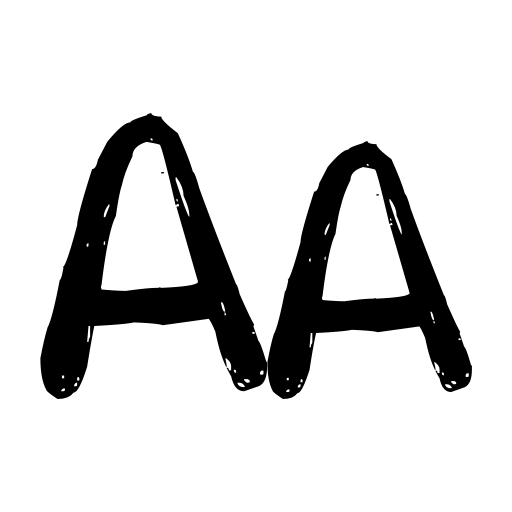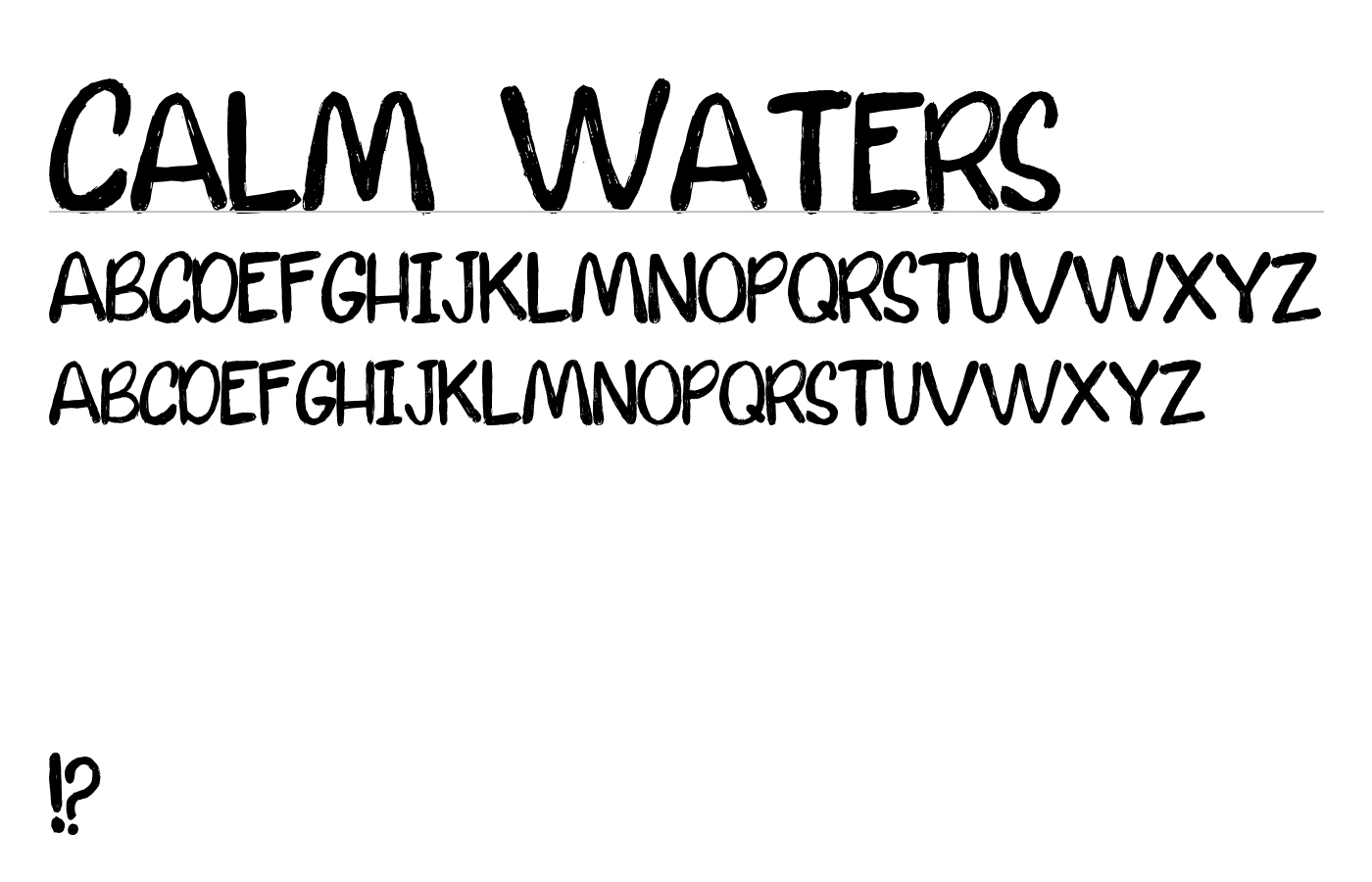
Calm Waters is a casual, hand-drawn sans serif font with a relaxed and organic feel. Its uneven, brush-like strokes and moderately tall x-height give it an approachable and friendly personality, perfect for informal designs, playful branding, or creative projects seeking a natural, handcrafted touch. This font works well for headlines, social media graphics, and packaging where a personal and artistic vibe is desired.
Calm Waters Font
About Calm Waters Font